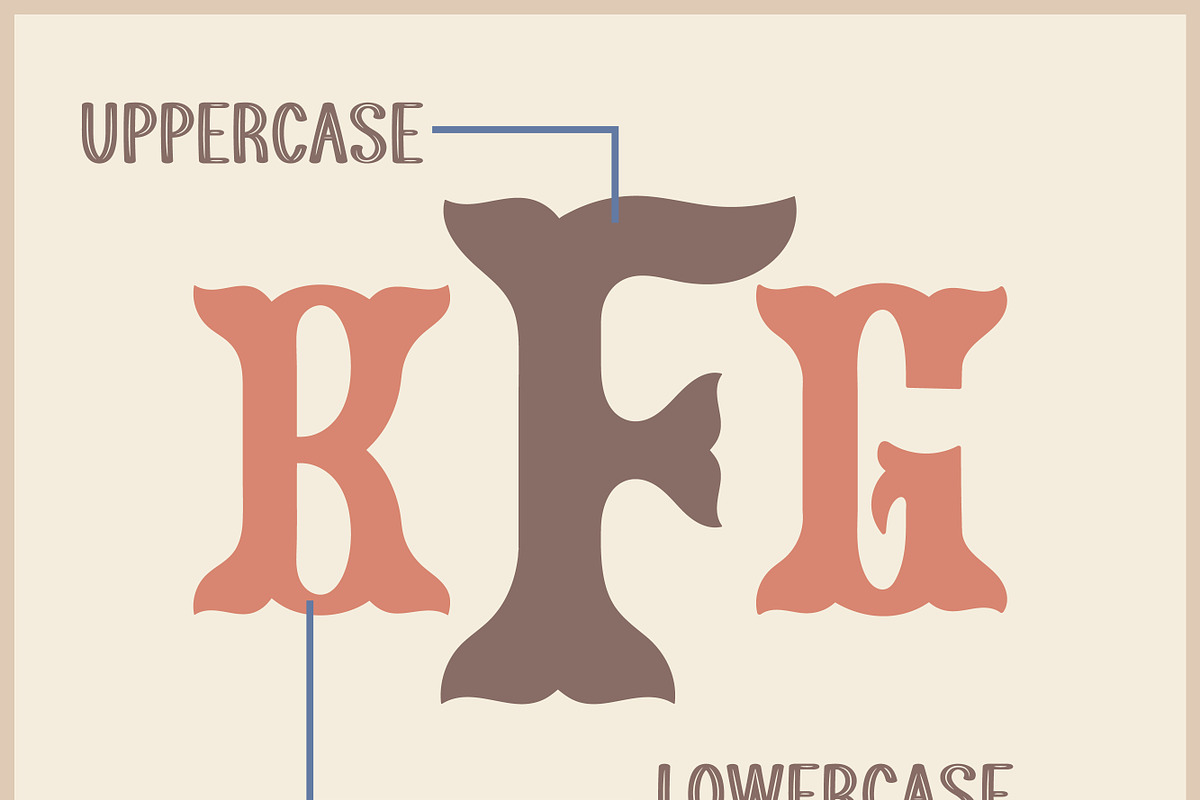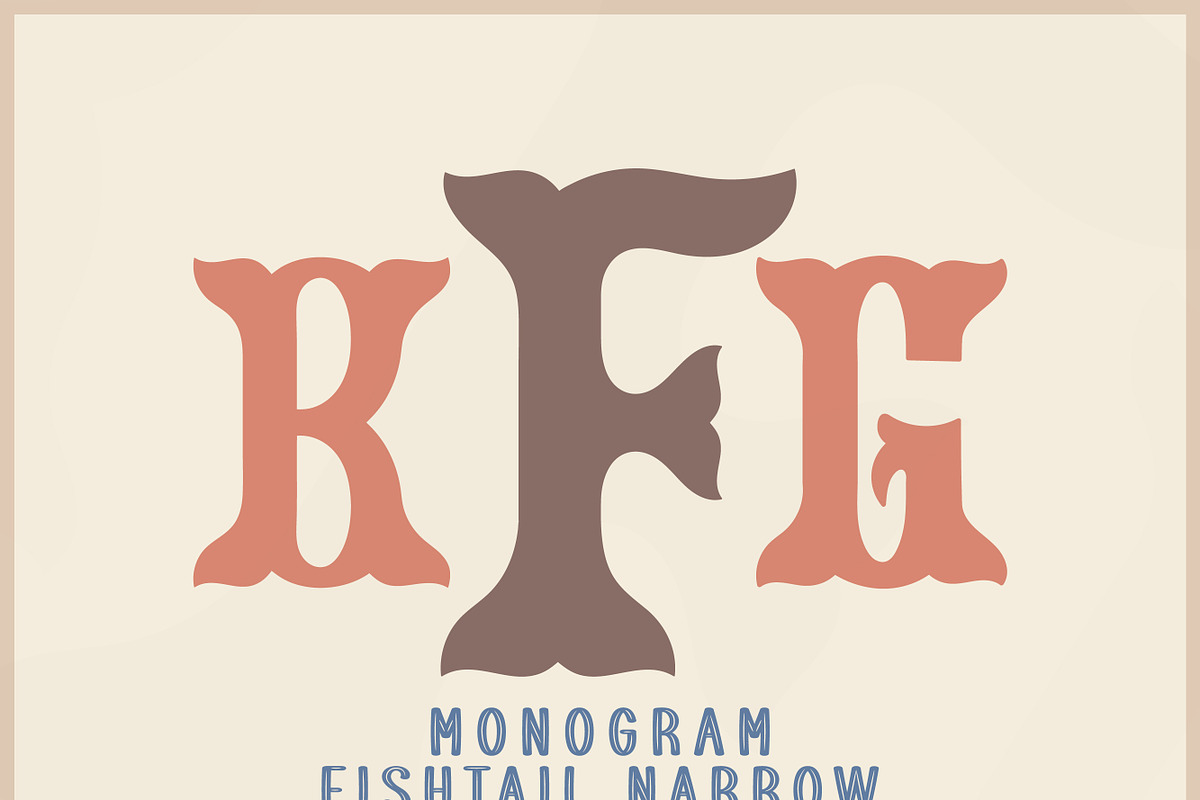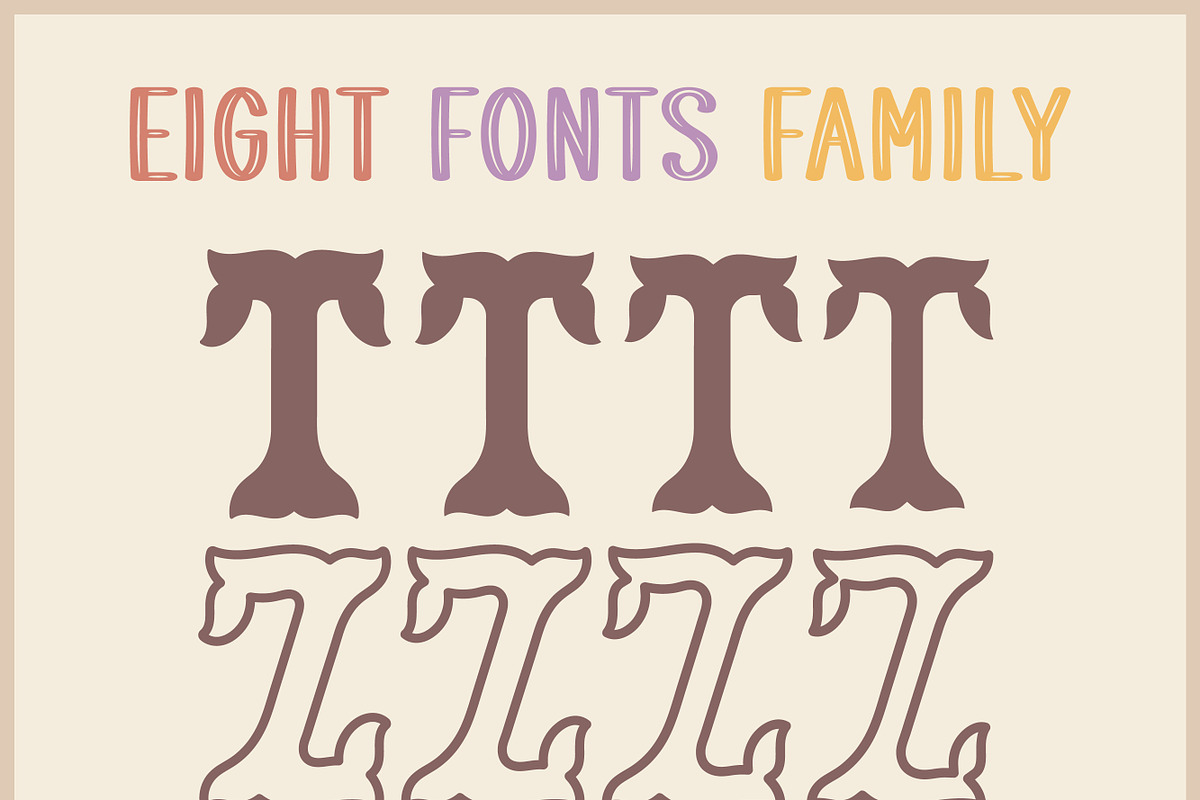
Fishtail Narrow
Fishtail Narrow is cute western fishtail monogram font. Perfect for embroidery, monograms, custom apparel, tote bags, hats, and creative DIY projects.